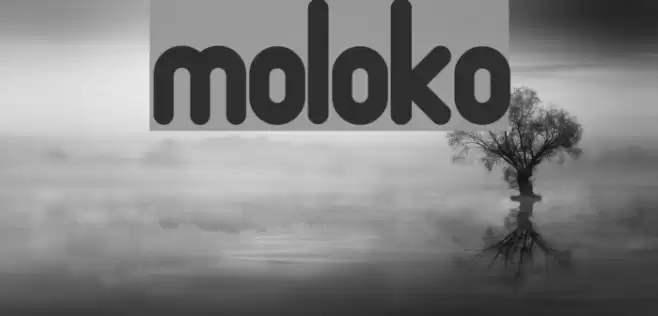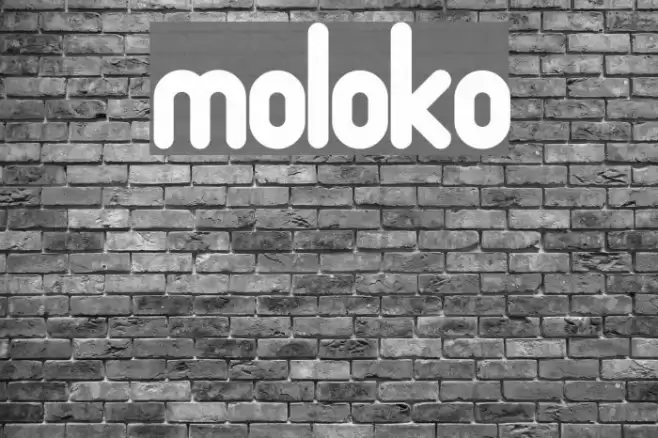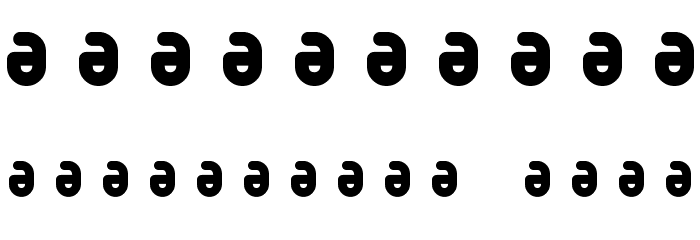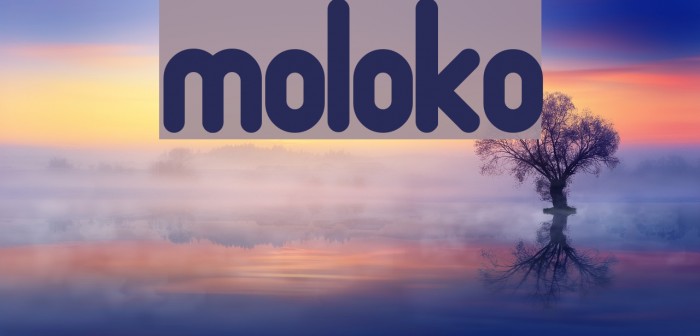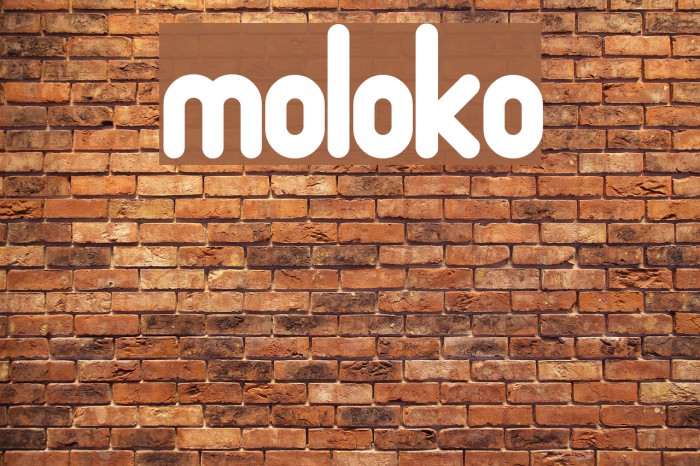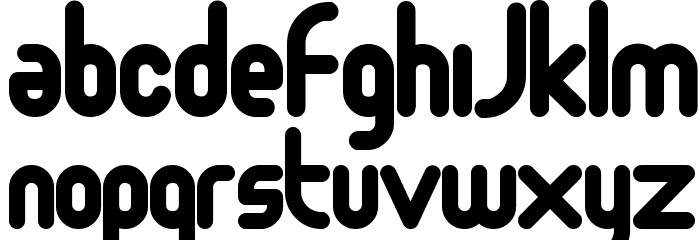
Moloko
This font features a bold and rounded style with a modern and playful aesthetic. The characters are uniformly thick, giving a strong and consistent appearance across all letters. The rounded edges and smooth curves create a friendly and approachable look, making it suitable for a variety of design projects. The font maintains a consistent weight throughout, ensuring readability while adding a touch of uniqueness with its slightly condensed form. Its geometric shapes and clean lines contribute to a contemporary feel, ideal for modern branding and design applications.
A bold, rounded font with a modern and playful aesthetic.
- Proposed Projects: Ideal for branding, logos, packaging, and children's book covers.
- Width: Condensed
- Use Case: Logos, Headlines, Branding